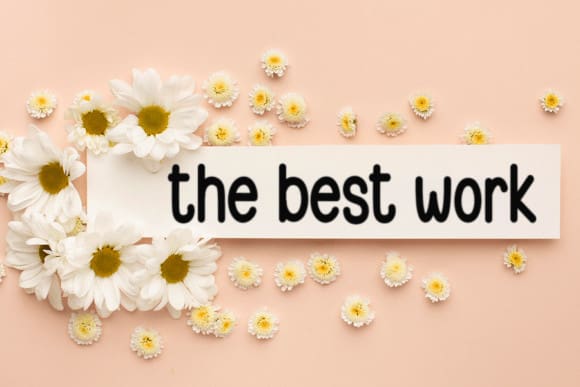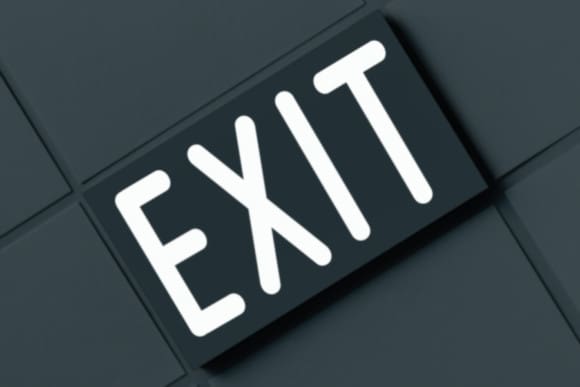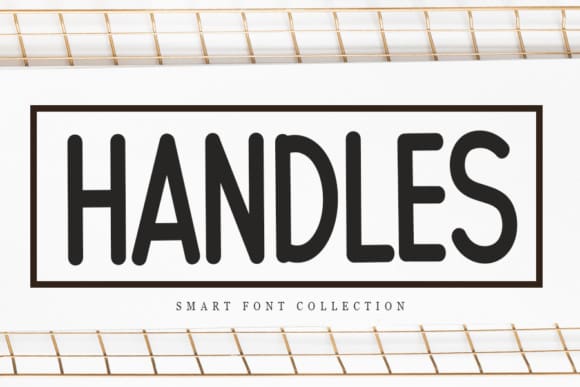
Handles Cute Font
Handles Cute Font is a beautiful display font perfect for magazines and crafts. Add it to your fonts library, and use it to create spectacular designs!